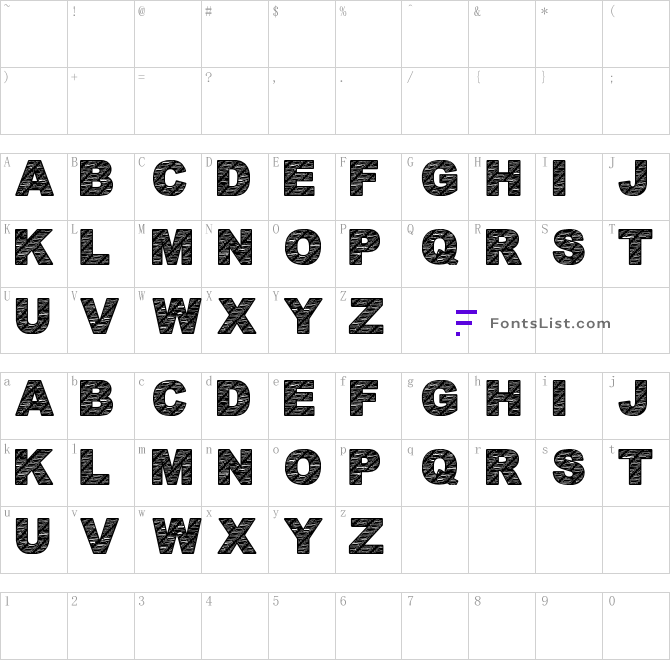
- Font Name:BatikFont1
BatikFont1.ttf is a very beautiful artistic font, BatikFont1.ttf is widely used in the design and printing of various books and pictures,BatikFont1.ttf has a strong visual impact,BatikFont1.ttf is a commonly used font in newspapers, magazines and books, and is used in posters, e-commerce Poster design, store design, logo design, font design and other fields.BatikFont1.